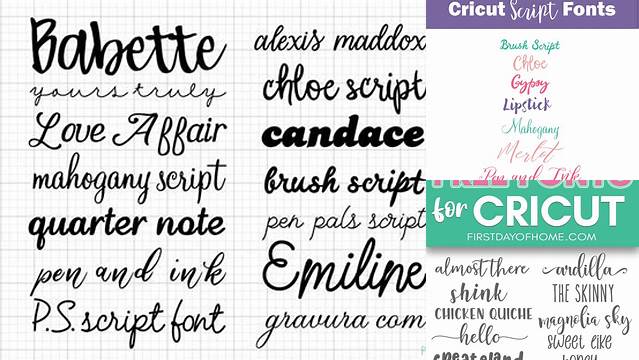
Cool Cursive Cricut Font Names You Need To Know
Hey guys! Ever found yourself staring at your Cricut, dreaming of elegant script and swoon-worthy designs? Well, you're in the right place! Choosing the perfect cursive font can seriously elevate your Cricut projects, whether you're crafting personalized gifts, sprucing up your home decor, or adding a touch of flair to your scrapbooks. I'm talking about the cursive cricut font names – the secret sauce that transforms a simple project into something truly special. This guide is your ultimate cheat sheet, packed with recommendations for awesome cursive fonts, tips on how to use them, and some inspiration to get those creative juices flowing. Let's dive in and explore the world of beautiful cursive fonts!
H2: Decoding Cursive Fonts: What Makes Them Cricut-Ready?
Alright, before we jump into the font names, let's quickly break down what makes a cursive font Cricut-ready. You see, not all fonts are created equal, especially when it comes to cutting them with a machine. A good cursive font for Cricut has a few key characteristics. First, it needs to be easily connected. This means the letters should flow together seamlessly, allowing the Cricut to cut them as a single, continuous word or phrase. This is where the magic happens, creating that elegant, handwritten look. Secondly, the font should be thick enough to withstand the cutting process. Thin, delicate fonts are gorgeous, but they can be a nightmare for the Cricut. They might tear, or the fine details might get lost. Choosing a slightly bolder cursive font often solves this problem. Cursive cricut font names are also typically designed with clean lines, making them easy for the Cricut to trace and cut precisely. Lastly, consider the file format. You'll want fonts that come in a format that your Cricut software (Design Space) can handle, such as TTF (TrueType Font) or OTF (OpenType Font). With these factors in mind, you can confidently choose a cursive font that will look stunning on your projects.
When you delve into the world of cursive cricut font names, you'll find a vast range of styles, from the classic, elegant scripts that evoke a sense of sophistication to the playful, modern fonts that bring a touch of whimsy and fun. Each font has its own unique personality, and the key is to find the ones that resonate with your style and the specific project you're working on. You can find these fonts on various websites, some free and some paid, each offering a different selection. When you're looking for fonts, think about your project and what vibe you're trying to achieve. Are you making wedding invitations and want something romantic and graceful? A classic script is a perfect choice. Or maybe you're creating a birthday card for a friend and want something more casual and cheerful. A modern, handwritten font might be more suitable. The possibilities are truly endless. Taking the time to explore the options and experiment with different fonts is a fantastic way to boost your creativity and take your Cricut projects to the next level!
H2: Top 5 Classic Cursive Cricut Font Names for Timeless Elegance
Let's kick things off with the classics, shall we? These are the cursive cricut font names that never go out of style. Think of them as your go-to fonts for any project that calls for a touch of elegance and sophistication. First up is Great Vibes. This font is a beautiful, flowing script that exudes grace and charm. It's perfect for wedding invitations, monograms, and any project where you want to make a statement of refined beauty. Next, we have Playlist Script. This font has a slightly more casual feel but still maintains a level of sophistication. It's an excellent choice for creating signs, wall art, or even personalized gifts. It works particularly well in projects that involve a sense of warmth and friendliness. Then there is Butterflies and Sunshine, a playful and quirky font that adds a cheerful and inviting touch to any project. This font is perfect for children's projects, birthday cards, and anything that requires a touch of fun.
Another font worth mentioning is Dancing Script. This font has a bouncy, handwritten style, which makes it ideal for adding a personal and approachable touch to your designs. It’s great for crafting quotes, invitations, or even adding a unique flair to your wall decor. It will make your projects look like they were made by hand, adding a touch of personality. And finally, there's Alex Brush. This font is known for its delicate and flowing lines, reminiscent of calligraphy. It's ideal for projects that require a refined, elegant aesthetic. Perfect for wedding stationery, elegant gift tags, or adding a touch of sophistication to any project you have in mind. With these classic cursive fonts, you have a solid foundation for creating beautiful and timeless Cricut projects that will surely leave a lasting impression. These cursive cricut font names offer a variety of styles, allowing you to add flair to your projects. No matter your style, you'll find a font that perfectly matches your projects and creates stunning designs.
H2: Modern Cursive Font Names: Trending Styles for Your Cricut Projects
Alright, let's move from the classics to what's trending! If you're looking to inject some fresh, contemporary vibes into your Cricut projects, here are some modern cursive cricut font names that are making waves. First, we have Hello Honey. This font boasts a clean, modern script with a touch of playfulness. It is ideal for creating logos, branding materials, and any project where you want to convey a sense of modern charm. Next, consider Mightype Script. This font has a bold, stylish look, making it great for creating eye-catching designs for anything from t-shirts to wall art. It gives a modern feel to projects. You could also go for The Fabrikat Script. This font combines classic calligraphy with a modern twist. It features unique letterforms and is a great choice for creating personalized gifts or branding. It combines traditional elements with a modern aesthetic, creating an impressive design.
Then, there is Adelia. This elegant font, with a soft, flowing style, is perfect for crafting elegant invitations, posters, or social media content, bringing a refined look to your projects. And lastly, there is Stay Classy. As the name suggests, this font oozes sophistication, with a modern touch. It is a great font to use in branding materials or creating personalized gifts. These modern cursive cricut font names will help you create designs that are on-trend and visually appealing. By exploring these fonts, you can add a touch of contemporary flair to your Cricut projects and create designs that reflect the latest trends in graphic design. Keep experimenting and trying out different fonts to find the styles that resonate with your personal aesthetic. Don't be afraid to experiment with different combinations, effects, and customizations to really make your designs shine. By staying updated on the latest design trends, you can continue to make your Cricut projects fresh and modern.
H2: Free Cursive Font Gems for Your Cricut: Where to Find Them
Who doesn't love freebies? Finding awesome cursive cricut font names without spending a dime is totally possible, and I'm here to show you where to look. First and foremost, check out websites like DaFont and Font Squirrel. These platforms offer a vast collection of free fonts, including many beautiful cursive options. Just be sure to double-check the license before using them for commercial purposes. Next, explore websites like Google Fonts. While not exclusively cursive, they have a growing selection of elegant and readable fonts. These are great options for both personal and commercial use. Another tip is to check design bundles or giveaways. Occasionally, websites like Creative Market and Envato Elements offer freebies, including font packs. These are fantastic opportunities to expand your font library without emptying your wallet.
Keep in mind that when using free fonts, it is important to review the licensing terms carefully. Some fonts may be free for personal use only, while others may allow commercial use. Always check the license to ensure you are using the font in accordance with the rules. Also, keep in mind that free fonts might not always be as polished as paid fonts, but it does not mean that they aren't as good. They might have fewer characters or stylistic variations. But don't let this discourage you, free fonts can be a great way to explore and find new fonts without having to commit to purchasing something you might not use. Once you have found a font that you like, you can download the font file and install it on your computer to use it with your Cricut software. If you're on a budget or just want to explore, these are excellent sources. By exploring these resources, you'll be well on your way to finding great, free cursive cricut font names to use in your Cricut projects. Start by exploring the websites mentioned above and have fun!
H2: Pairing Cursive Fonts: Finding the Perfect Font Combinations
Choosing the right cursive cricut font names is only half the battle. Another factor is pairing those fonts with other fonts. Font pairing is a critical aspect of creating visually appealing and balanced designs, especially when working with cursive fonts, which often serve as the focal point of the design. The goal of font pairing is to create visual harmony. One popular approach is to contrast a cursive font with a simpler, cleaner font. For example, you might pair a flowing cursive font with a sans-serif font for headings and body text. This helps create a hierarchy and makes the design easier to read. Or, you could try pairing a cursive font with another font that complements its style, such as a serif font. When combining different fonts, it's essential to consider the style, weight, and size of the fonts. Try pairing a bolder cursive font with a lighter, more delicate font to create visual interest.
Experiment with different font pairings to discover what works best for your project. Sometimes, combining a cursive font with a decorative or display font can create a striking and eye-catching design. Consider the tone you want to establish in your design, as it will help guide your font choices. For instance, if you're creating wedding invitations, a romantic cursive font might pair well with a classic serif font. If you're designing a website, a modern cursive font could be used for headings. Remember that pairing fonts is all about balance and creating a visually pleasing design. It's always a good idea to test your font pairings on different projects before you commit to them. By experimenting and exploring different font combinations, you can create visually stunning designs. Don't be afraid to try different styles, and discover how each one can transform your projects. Mastering the art of font pairing will significantly enhance the appeal of your projects. Take some time to experiment with combinations until you are comfortable. Don't be afraid to create something different and truly unique.